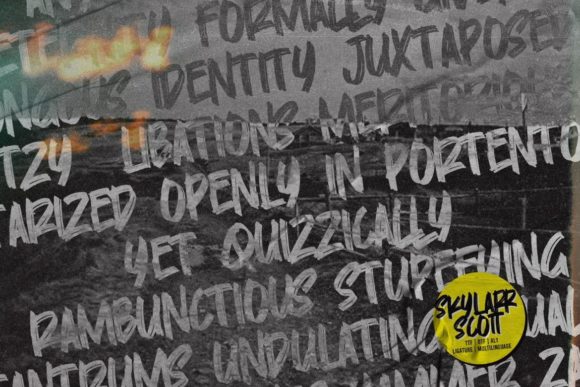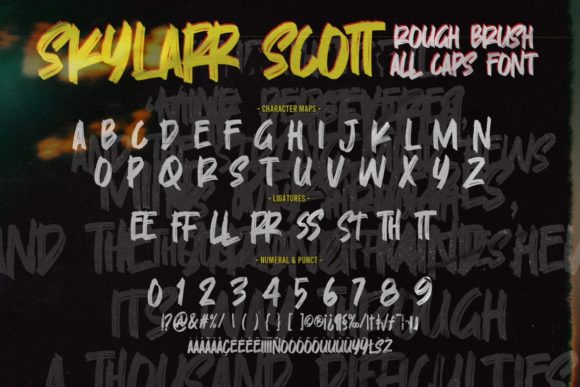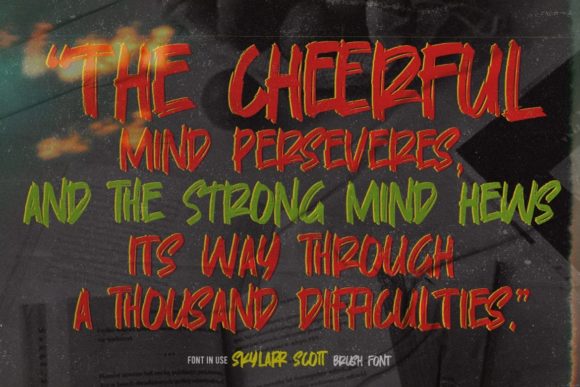
Introduction to Skylarr Scott Font
Skylarr Scott is a brushed display font that has a creepy, street art vibe.
This font is suitable for designs such as t-shirts, sportswear, logos, advertisements, clothing, and more .
Key Features of Skylarr Scott Font